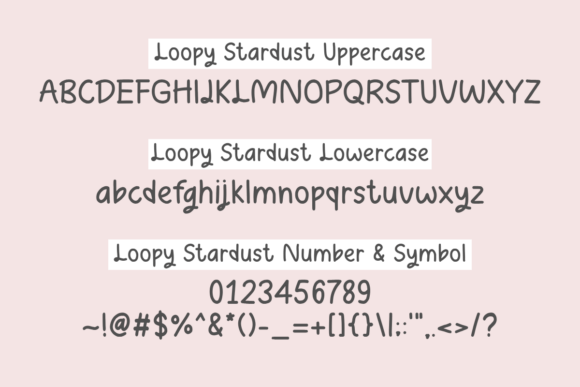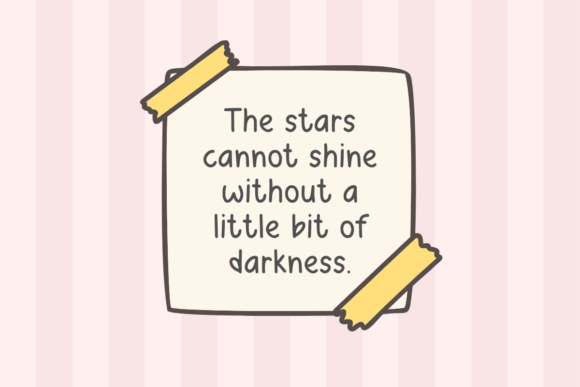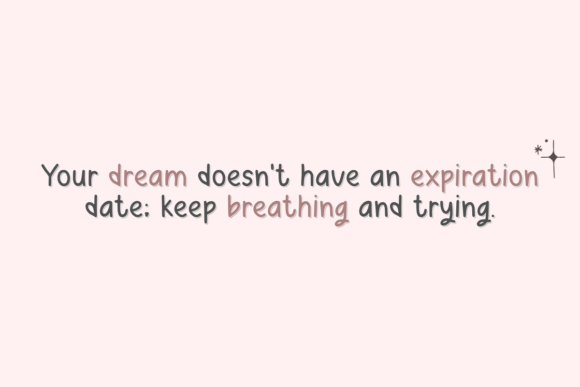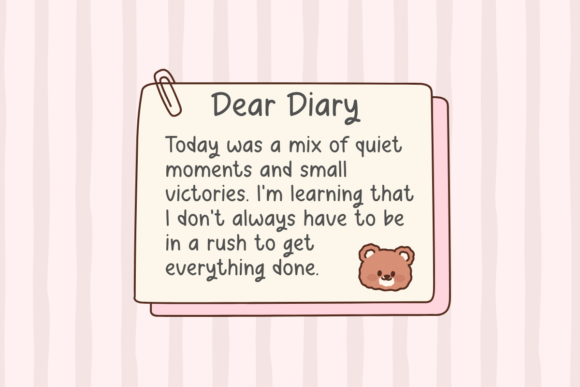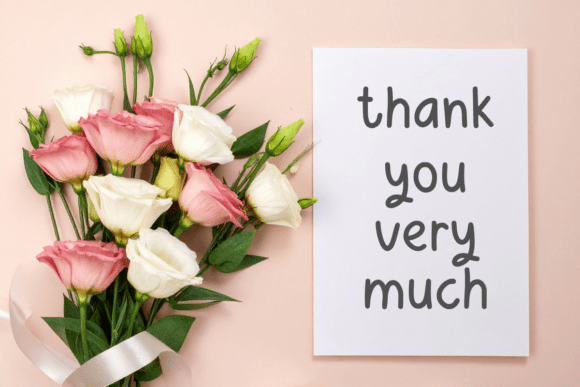
Introduction to Loopy Stardust Font
As you sit down to craft a heartfelt gift for a loved one, or plan a creative project that brings you joy, you’re constantly on the lookout for the perfect design element. The right font can elevate your work from ordinary to extraordinary, and that’s where the Loopy Stardust Font comes in.
This elegant, minimalist sans serif font has captured the hearts of designers and crafters alike with its understated charm and high-quality aesthetic. Its transparent background and delicate lines make it the perfect choice for planners, journals, stickers, labels, and inspiring quotes. Whether you’re working on a digital design or a physical craft, the Loopy Stardust Font is an invaluable resource that can add a touch of sophistication to your work.
Key Features of Loopy Stardust Font
- Unique, hand-drawn design with a whimsical feel, perfect for creative projects and illustrations.
- High-quality font with a transparent background, ideal for use on any background or design element.
- Includes 4 different font styles, each with its own distinct character and charm.
- Designed at a large size (1024px x 1024px) for optimal resolution and clarity.
- Perfect for use in a variety of creative projects, from children’s books to advertising and marketing materials.
Honest Review: Loopy Stardust Font
I recently stumbled upon the Loopy Stardust Font while searching for a unique design resource for a creative project. The first thing that caught my attention was its transparent background, which made it perfect for layering and combining with other design elements.
What works well: ✨ The font’s playful and whimsical feel makes it ideal for projects that require a touch of magic. The Loopy Stardust Font is also available for free download, which is a huge plus for designers on a budget. The high-quality design ensures that it will look great on any device or platform.
Here are some key features of the Loopy Stardust Font:
- Unique and playful design
- High-quality design suitable for various devices
Limitations: ⚠️ While the font is great for creative projects, it may not be suitable for formal or professional designs. Additionally, the font’s complexity may make it difficult to use for non-designers.
Overall, I’m impressed with the Loopy Stardust Font. It’s a great addition to any designer’s toolkit, and its unique design makes it stand out from other fonts. I’d highly recommend it for designers looking for a creative and high-quality design resource.
Introduction to Loopy Stardust Font
The Loopy Stardust Font is a high-quality, free download design resource ideal for creative projects that require a touch of magic and whimsy. Its unique, playful style is perfect for designers looking to add a personal touch to their work.
Getting the Most Out of Loopy Stardust Font
To get the most out of the Loopy Stardust Font, use it in conjunction with other design resources, such as graphics and images, to create a cohesive and visually appealing design. Experiment with different font sizes, colors, and combinations to achieve the desired effect.
Common Use Cases for Loopy Stardust Font
The Loopy Stardust Font is perfect for a variety of creative projects, including social media graphics, presentations, posters, and flyers. Its unique style and high-quality design make it a valuable resource for designers of all levels.
Yes, the Loopy Stardust Font has a transparent background, allowing you to easily use it with custom backgrounds or design elements. This feature makes it an ideal choice for designers who want to create visually appealing and unique designs.